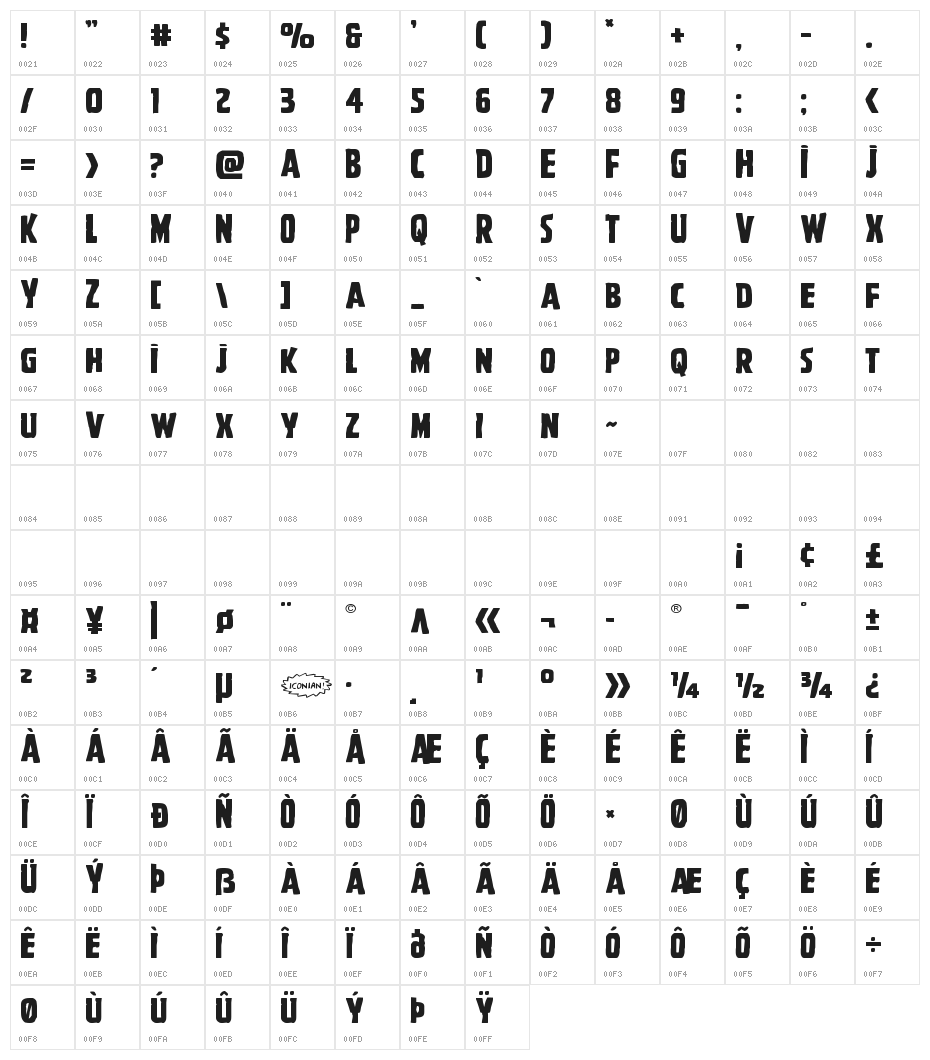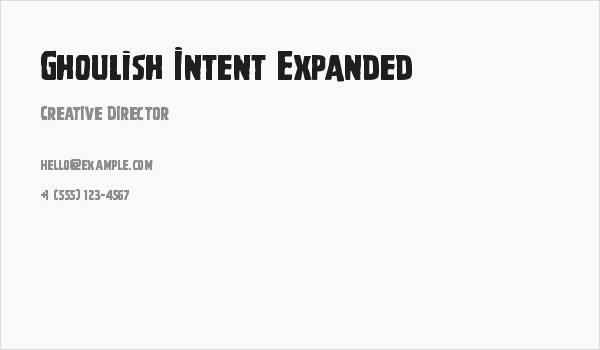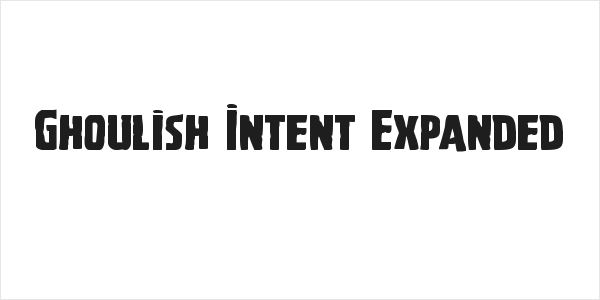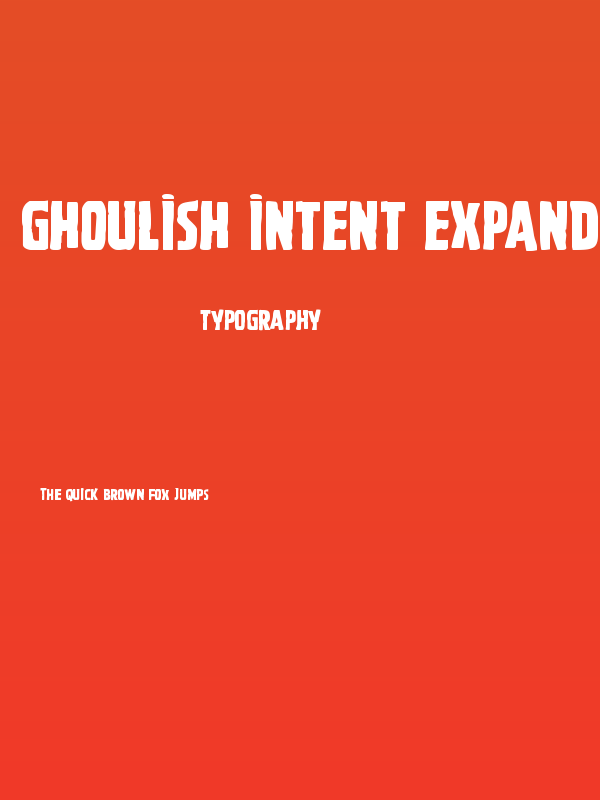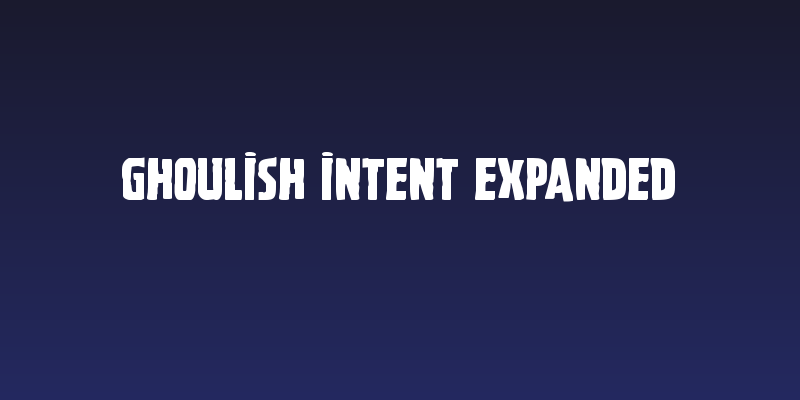
Ghoulish Intent Expanded Font
Ghoulish Intent Expanded Description
This font exhibits a bold and striking appearance, characterized by its thick, blocky letters with a slightly irregular edge, giving it a hand-crafted feel. The uppercase and lowercase letters maintain a consistent weight, contributing to a cohesive look. The numbers and special characters are designed with the same boldness, ensuring uniformity across all glyphs. The font's expanded width allows for a strong presence, making it ideal for attention-grabbing designs. Its unique style is reminiscent of vintage horror or Halloween themes, adding a playful yet eerie touch to any project.
Proposed ProjectsIdeal for Halloween-themed posters, horror movie titles, spooky event invitations, and decorative signage.